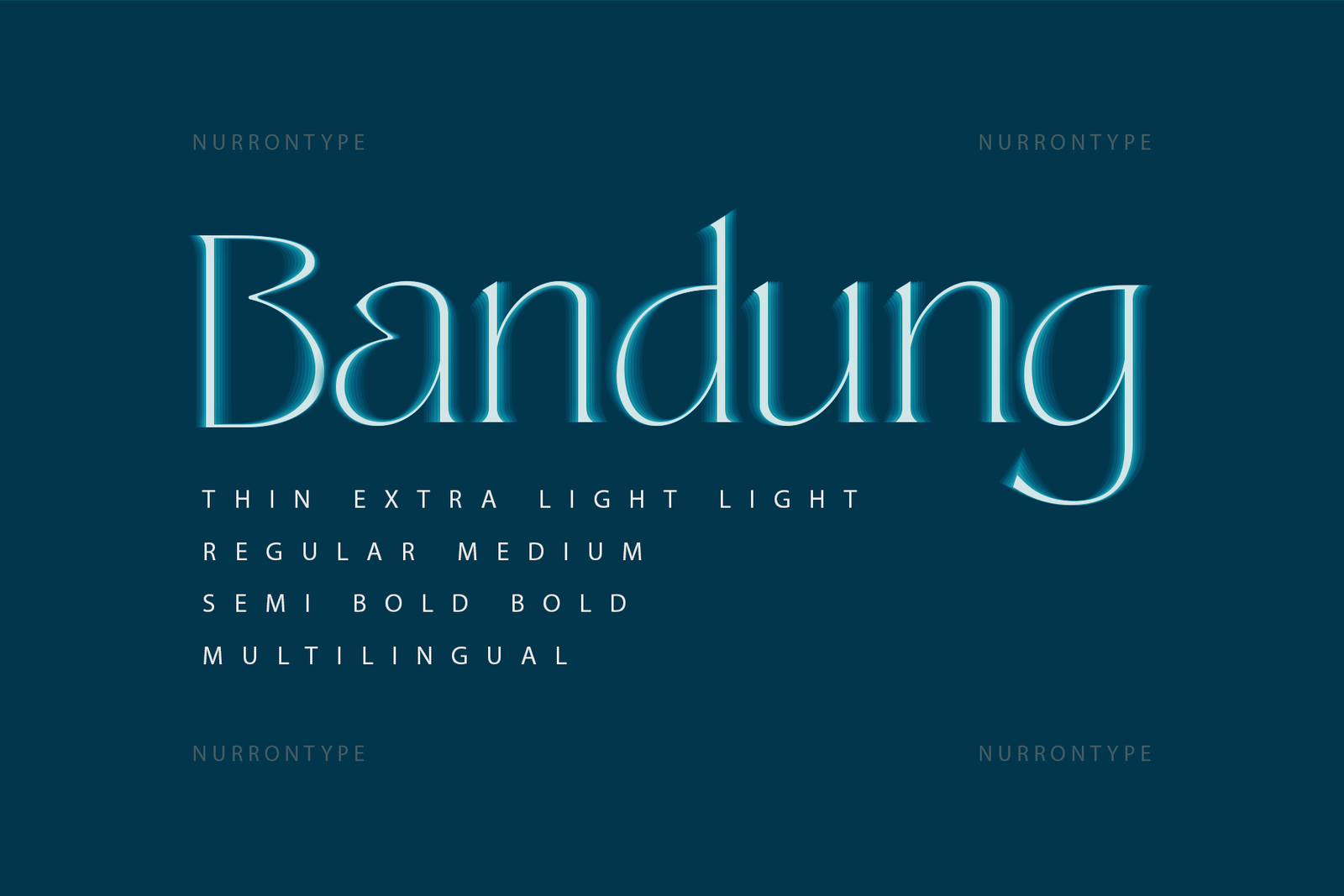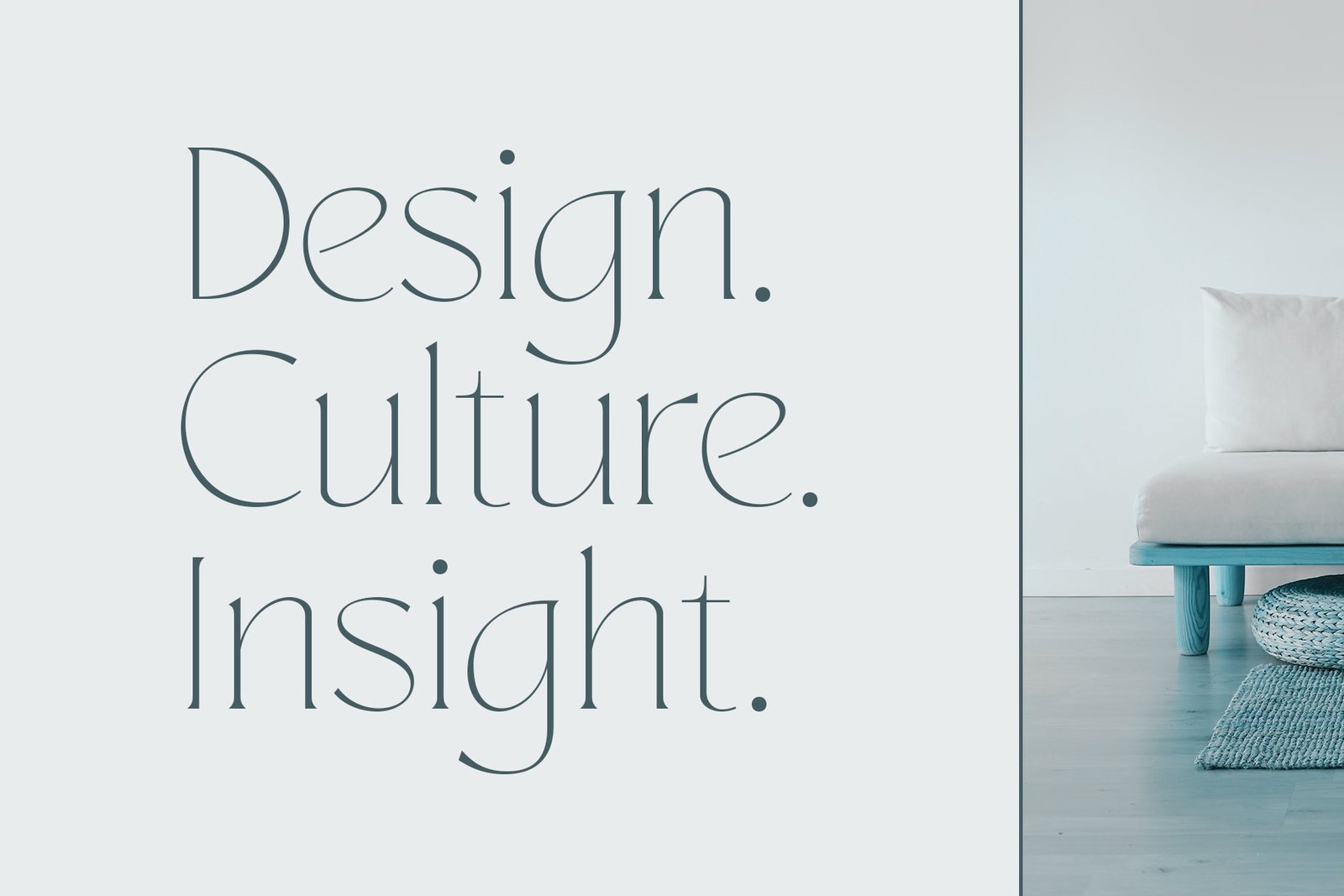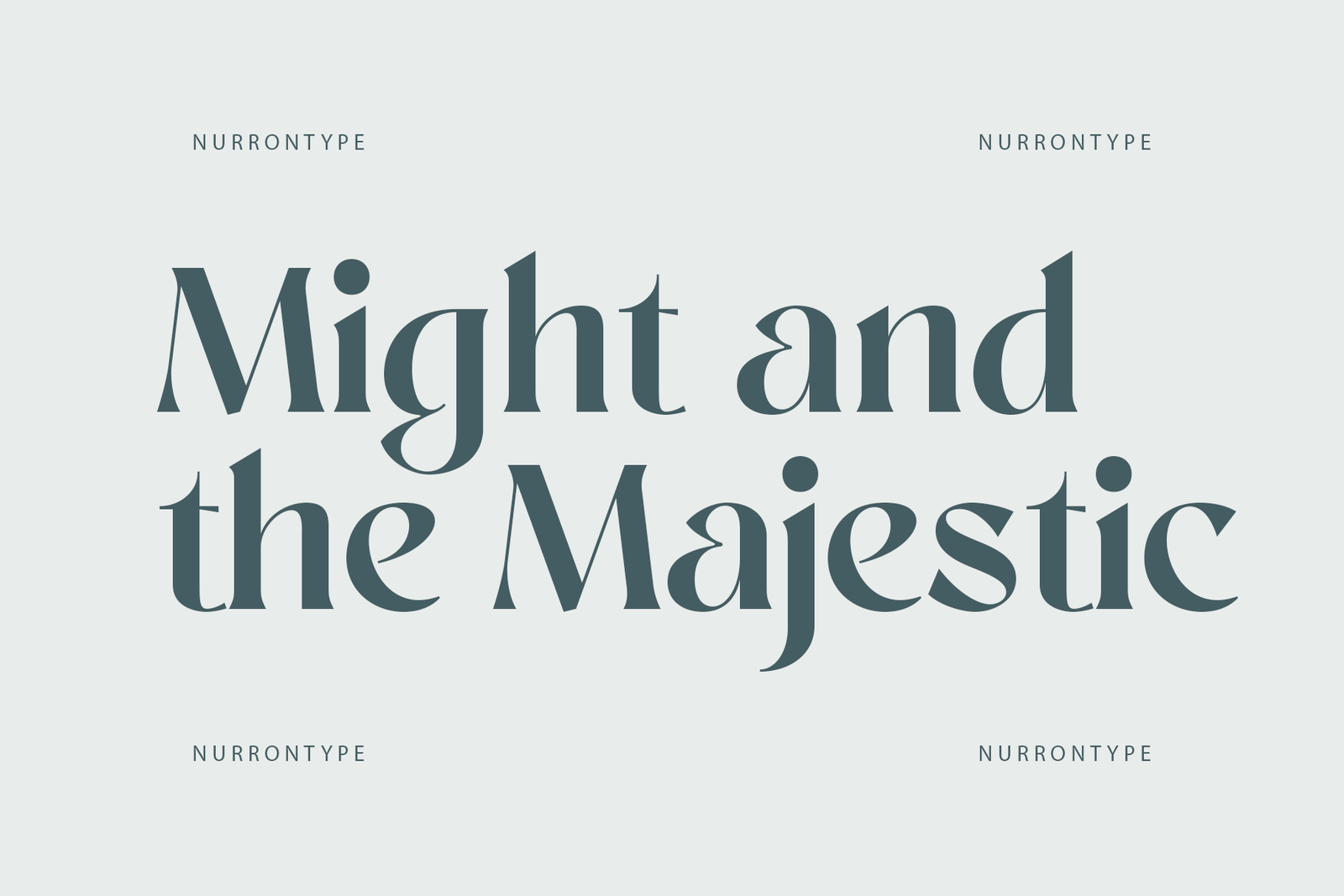
Sangu – Elegant High-Contrast Serif Font
Download Sangu – Elegant High-Contrast Serif Font, an elegant high-contrast serif font by Nurrontype, free for personal projects. Featuring unique glyphs and a versatile weight range from thin to bold, Sangu elevates logos, headlines, and branding designs. Commercial licenses are also available.
Its refined character and personality set it apart from traditional serif fonts, making it an excellent choice for branding, logos, editorial layouts, and luxury packaging. The font is available free for personal use, while commercial licenses can be purchased to support professional and business projects